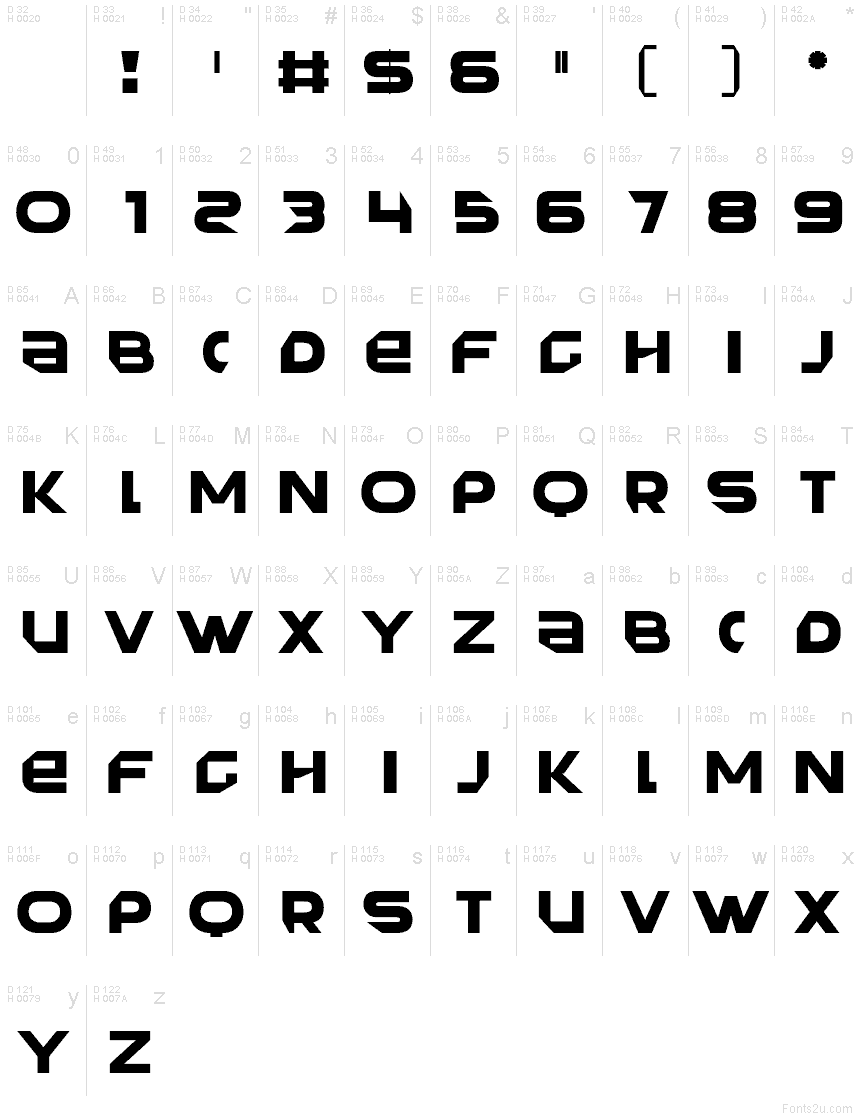
Title Ren
Title Ren font by Ffeeaarr is a free display font with a futuristic style defined by its expanded width and bold weight. Its clean, angular, and geometric design has a modernist feel within its uniform appearance achieved from a rigid structure, or a sharp non-cursive letters’ appearance.